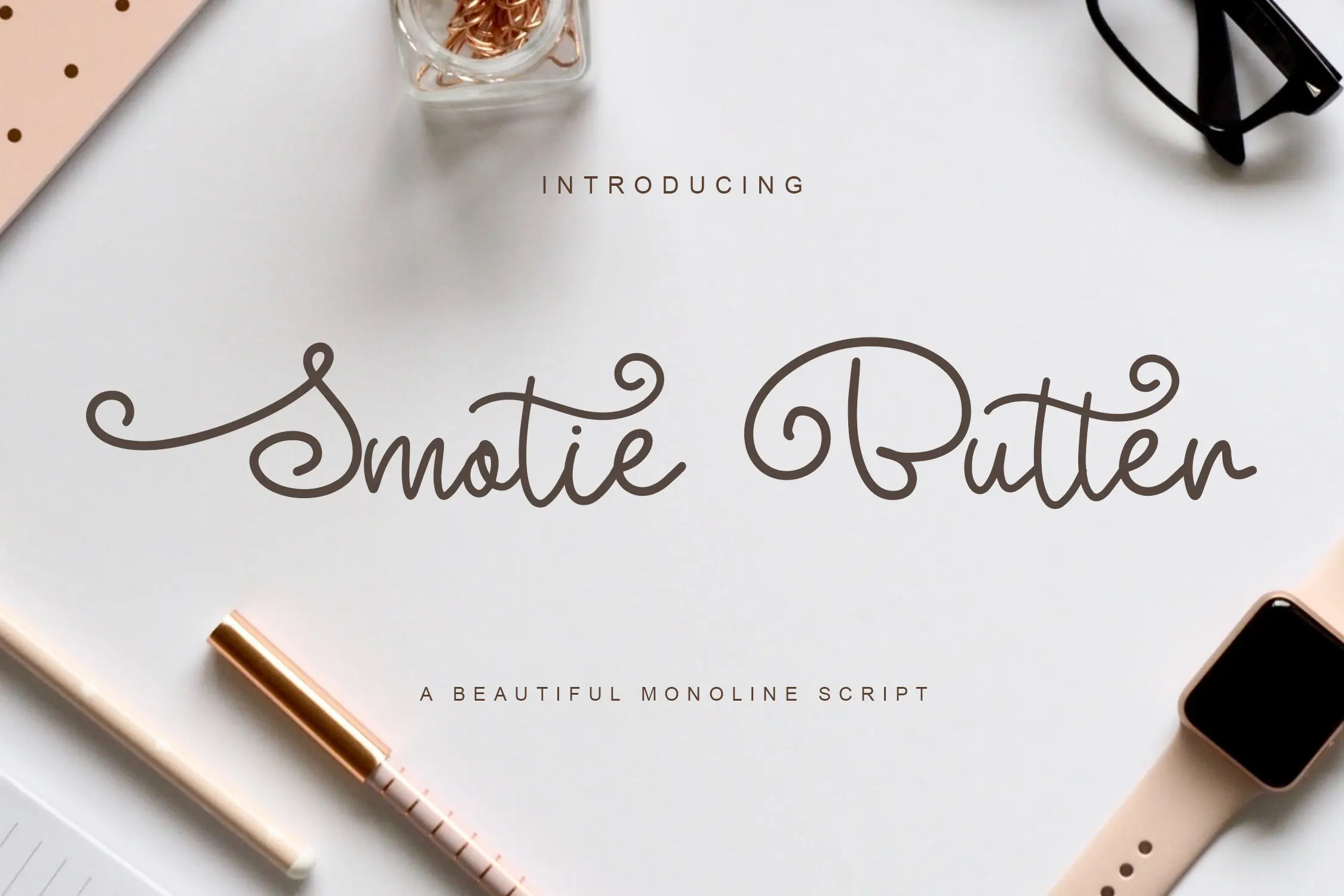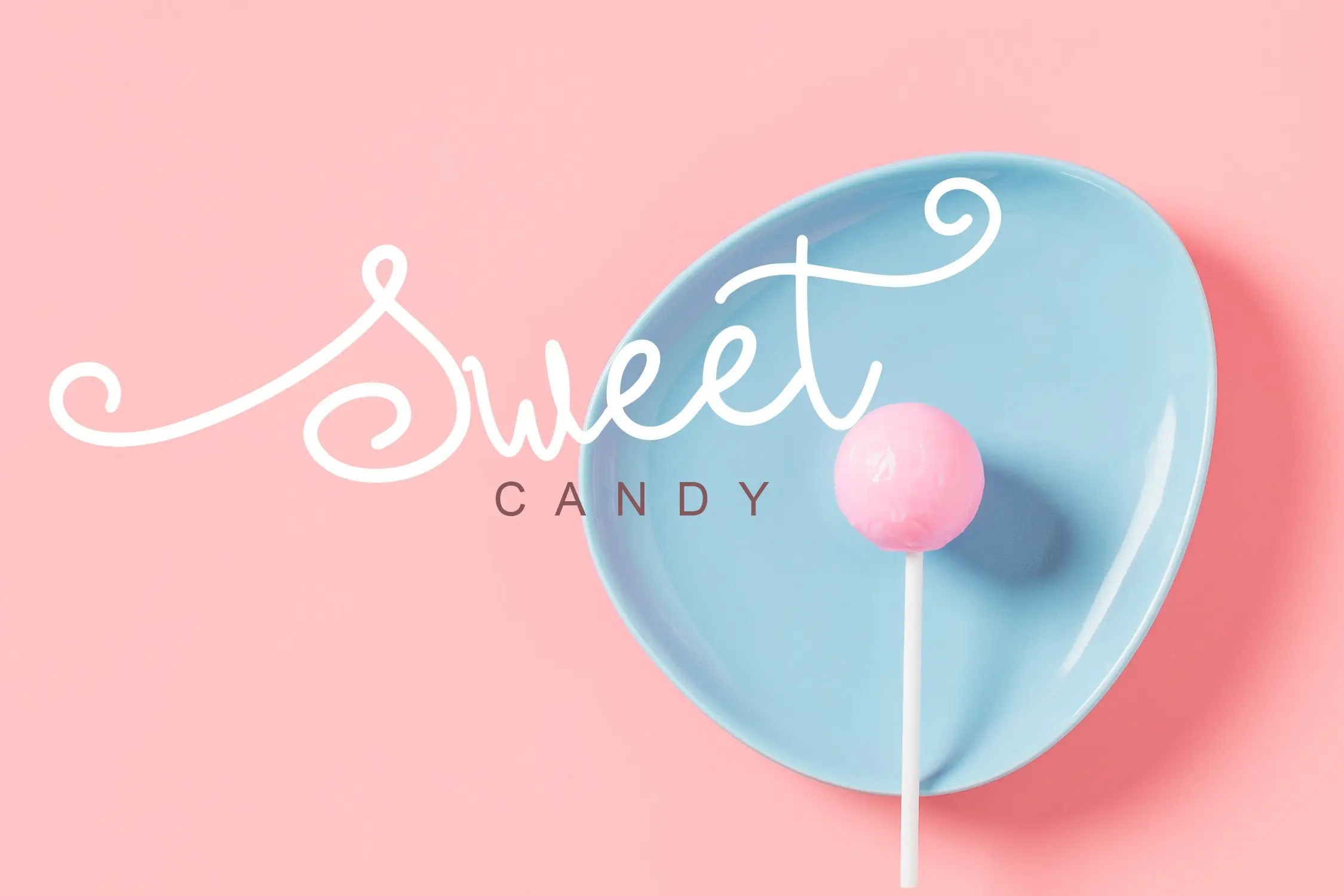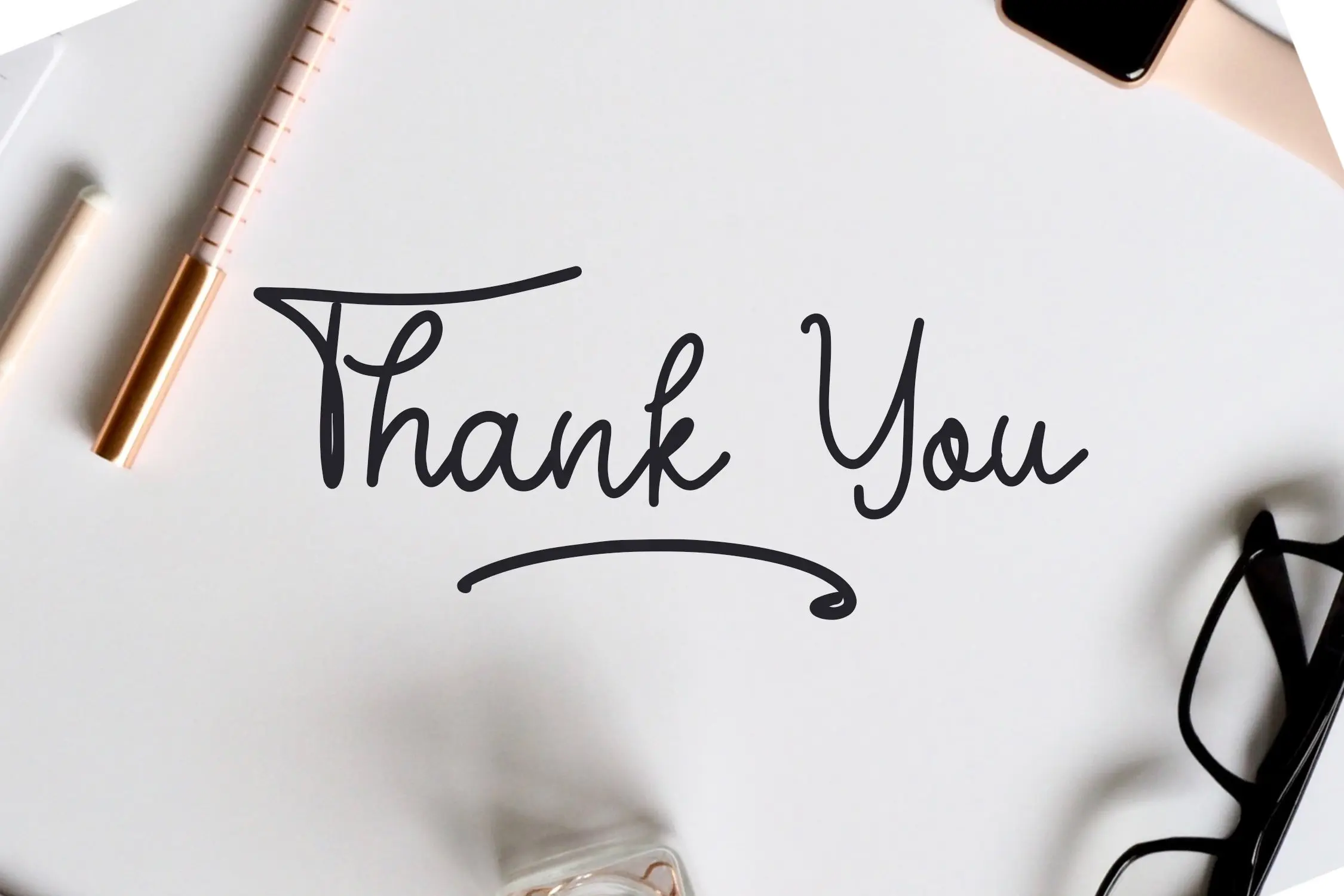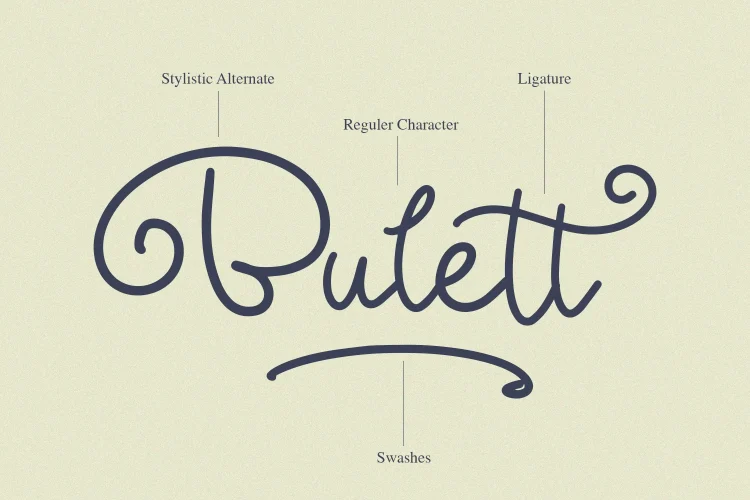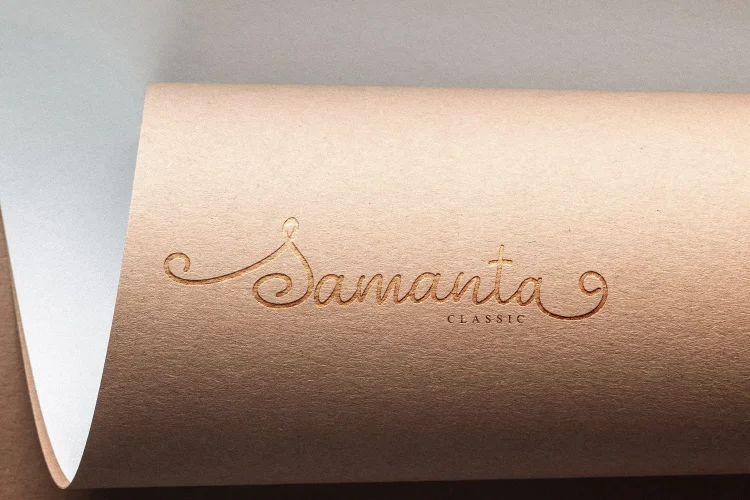
Smotie Butter is a monolines script type font that is very suitable for the publication needs of fashion, magazine, t-shirt design, flyers, and can also be used as a signature font. This font has a beautiful script character but has a firm side in it. Made with hand scratches directly and then processed into font processing software.
Smotie Butter font with uppercase characters A-Z, lowercase characters a-z, punctuation, swashes, stylistic alternate and ligature characters that enhance this font shape.
- Ligature
- Stylistic Alternate
- Swashes